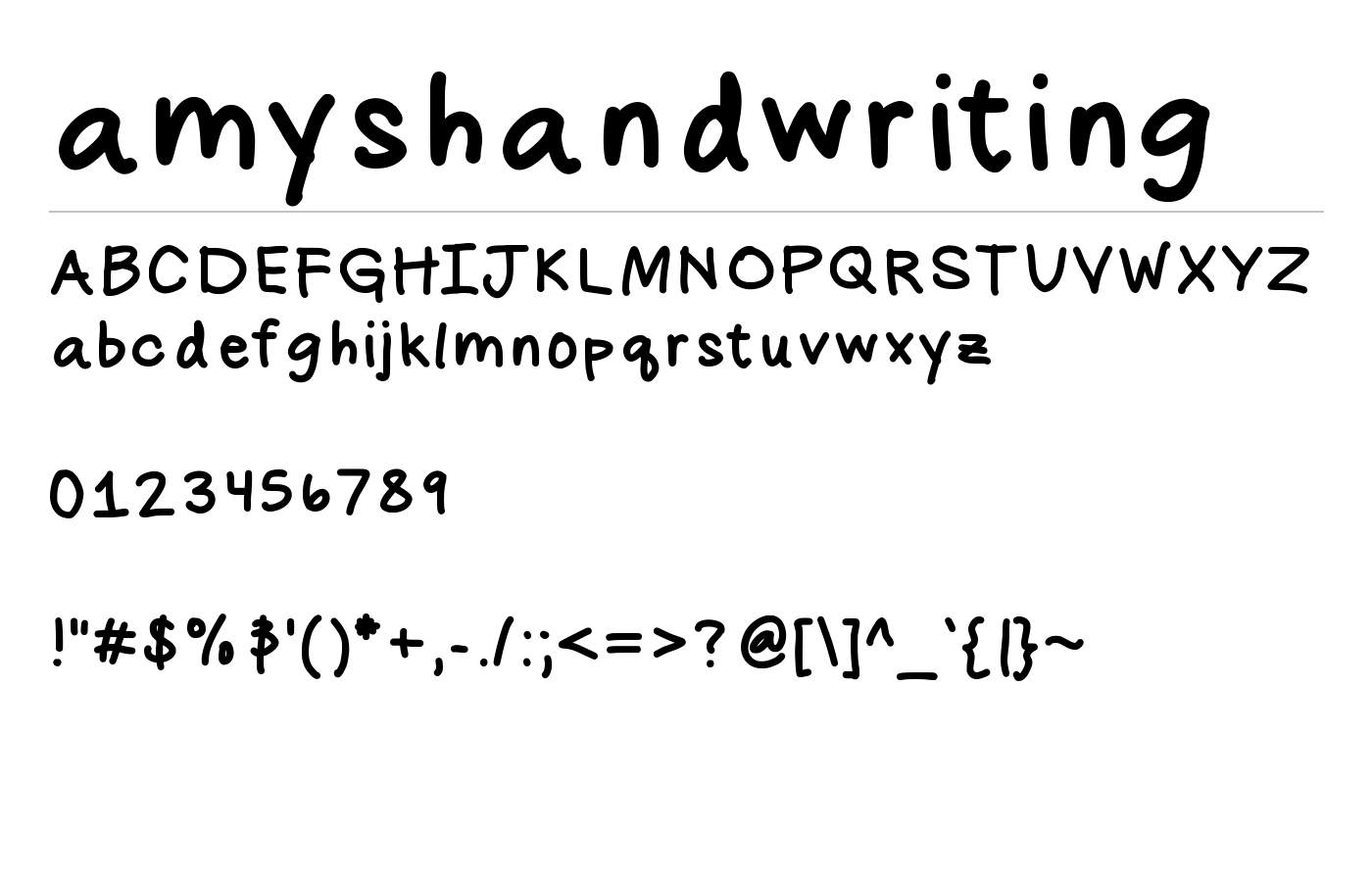
Amyshandwriting is a casual, playful handwritten font with a friendly and approachable feel. Its uneven, organic strokes and rounded, simple letterforms make it perfect for informal designs such as children’s books, personal projects, and creative branding that aims to appear warm and genuine. This font works well in headlines and short text where a personal touch or relaxed vibe is desired.
amyshandwriting Font
About amyshandwriting Font